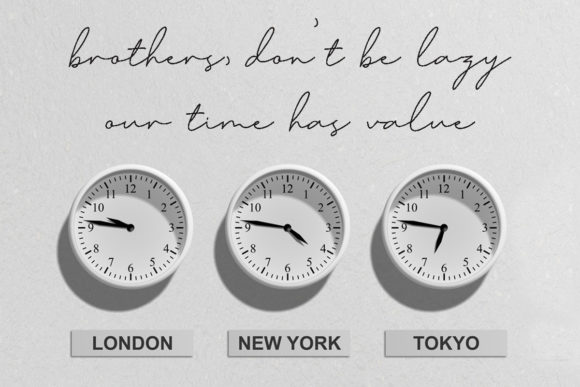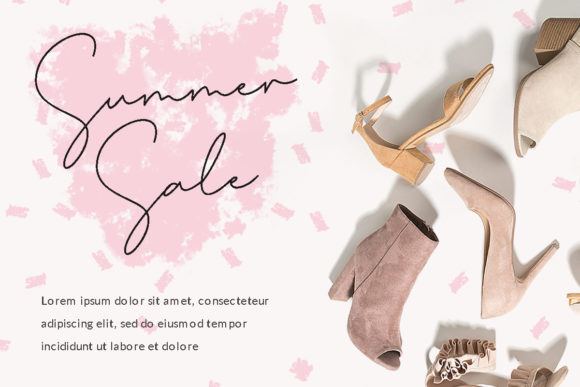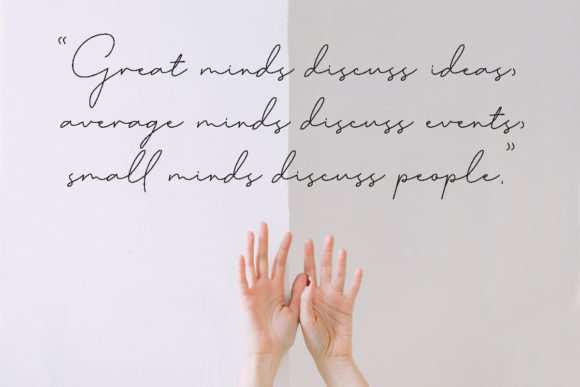
Introduction to Shefiratte Font
As designers, we’ve all been there – staring at a blank canvas, trying to bring a creative project to life. The words won’t come, the ideas won’t flow, and the cursor blinks tauntingly on the screen. But what if we had the perfect tool to spark our imagination? Enter the Shefiratte Font, a magical handwritten font that adds a touch of elegance to any design.
With its timeless classic style and friendly feel, the Shefiratte Font is the perfect design resource for any creative project. Whether you’re working on a logo, a brochure, or a social media post, this font is sure to elevate your design to the next level. And the best part? It’s available for free download, complete with a transparent background, making it easy to integrate into your project.
Key Features of Shefiratte Font
- Shefiratte Font is a free download design resource ideal for creative projects.
- It features a unique, hand-drawn style with a transparent background, making it perfect for overlaying on images or videos.
- The font comes in 6 different styles, each with its own unique characteristics, and supports a wide range of languages.
- The font has a large character set, including uppercase and lowercase letters, numbers, and special characters.
- Shefiratte Font is a versatile design resource that can be used in various creative projects, from branding and marketing materials to digital art and graphics.
Honest Review: Shefiratte Font
As a designer, I’m always on the lookout for high-quality design resources to elevate my creative projects. Recently, I had the opportunity to work with the Shefiratte Font, and I must say, it’s been a game-changer for my design workflow.
Here are some things that work well with the Shefiratte Font:
- ✨ High-quality typography: The font’s crisp lines and smooth curves make it perfect for any design project, from print to digital.
- ✨ Transparent background: The font’s transparent background makes it easy to customize and integrate with any design element.
- ⚠️ Limited font sizes: The font only comes in a limited range of sizes, which may not be ideal for designers who need to create custom typography.
- ⚠️ No bold/italic options: The font doesn’t come with bold or italic variations, which can be a limitation for designers who need to create emphasis or contrast.
Overall, I’m impressed with the Shefiratte Font’s design and usability. While it may have some limitations, its high-quality typography and free download make it a valuable resource for designers working on creative projects.
The Shefiratte Font is ideal for various creative projects, including branding, marketing materials, and digital graphics. Its high-quality design makes it suitable for a wide range of applications, from business cards to social media graphics.